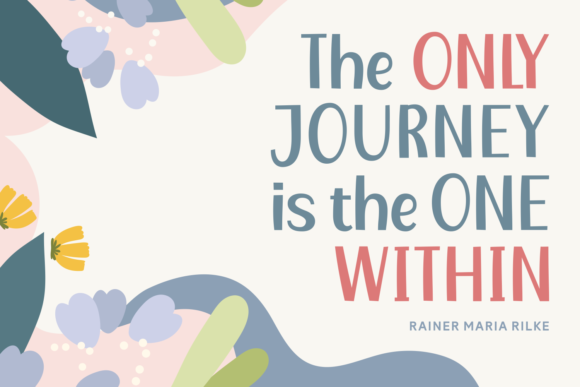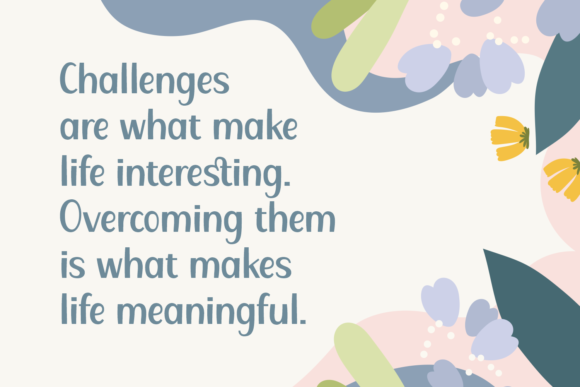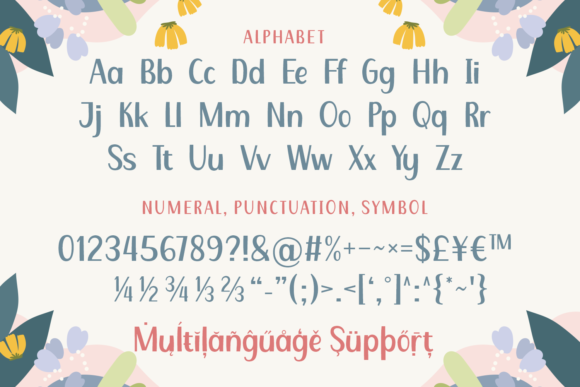
Discover the Elegance of Graceful Family Font: A Simple yet Versatile San Serif Typeface
In the world of typography, finding the right font can make all the difference in the success of a design project. Whether you’re a professional designer, a crafty DIY enthusiast, or a digital artist, having a reliable and versatile font in your toolkit is essential. This is where the Graceful Family Font comes in – a simple, yet elegant san serif font that has become a staple for many creatives. In this article, we’ll explore the features, benefits, and uses of the Graceful Family Font, and why it’s a must-have for your design library.
What is Graceful Family Font?
Graceful Family Font is a modern san serif typeface that exudes simplicity, elegance, and versatility. Its clean lines, rounded edges, and balanced proportions make it an excellent choice for a wide range of design applications. The font is designed to be highly legible, making it perfect for body text, headings, and titles. Its neutral and unassuming style allows it to blend seamlessly with various design aesthetics, from minimalist to playful.
Key Features of Graceful Family Font
- Simple and Versatile: The Graceful Family Font is incredibly versatile, making it suitable for various design projects, from crafts and prints to digital designs and more.
- San Serif: The font features a clean and modern san serif design, perfect for creating a sleek and contemporary look.
- Highly Legible: The font’s balanced proportions and rounded edges ensure excellent readability, even at small font sizes.
- Neutral Style: The font’s neutral style allows it to blend seamlessly with various design aesthetics, making it an excellent choice for designers who want to create a unique look.
Benefits of Using Graceful Family Font
The Graceful Family Font offers numerous benefits for designers, crafters, and digital artists. Some of the advantages of using this font include:
- Time-Saving: With its versatility and legibility, the Graceful Family Font saves you time and effort in finding the perfect font for your project.
- Consistency: Using a single font throughout your design project ensures consistency and cohesion, making your work look more professional.
- Ease of Use: The font is easy to use and pairs well with other fonts, making it simple to create stunning typography.
Uses of Graceful Family Font
The Graceful Family Font is an incredibly versatile typeface, suitable for a wide range of design applications. Some of the most popular uses of this font include:
- Crafts: Use the font for crafting projects, such as card making, scrapbooking, and DIY signs.
- Prints: The font is perfect for creating stunning prints, including posters, flyers, and brochures.
- Digital Designs: Use the font for digital designs, such as social media graphics, blog posts, and website headers.
- Branding: The font is suitable for branding projects, including logos, business cards, and letterheads.
In conclusion, the Graceful Family Font is an excellent addition to any design library. Its simplicity, versatility, and legibility make it a reliable choice for various design projects. Whether you’re a professional designer, a crafty DIY enthusiast, or a digital artist, this font is sure to become a staple in your toolkit. With its numerous benefits, uses, and affordability, the Graceful Family Font is a must-have for anyone looking to elevate their design work.